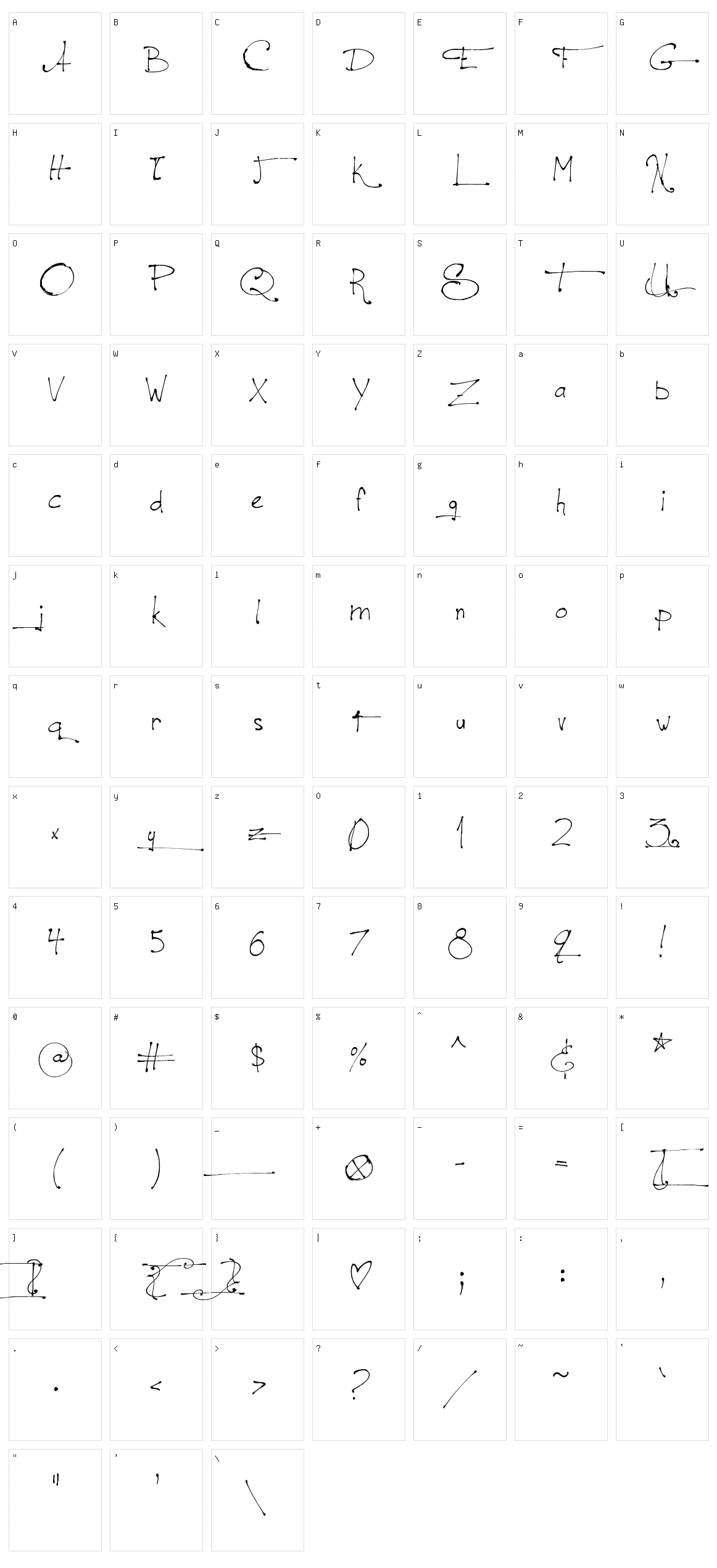
Jellyka - le Grand Saut
Designed by: Jellyka Nerevan
«Textual» version have smaller capitals. It's better used when you have to write long documents, because
the pace between the lines will be huge with the normal font. But the normal version is prettier and
should be used for titles or logos.